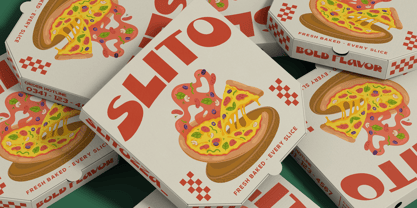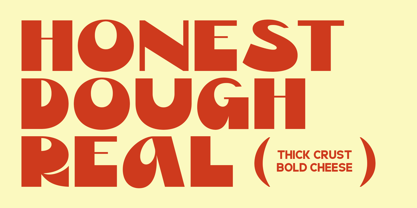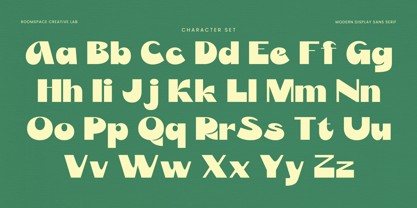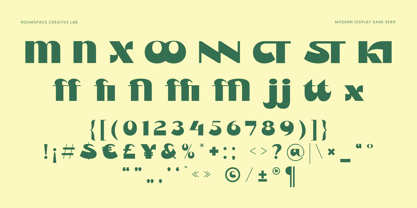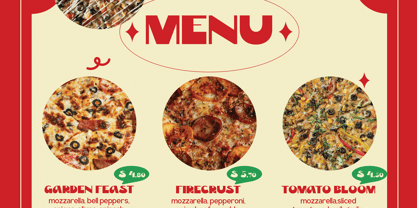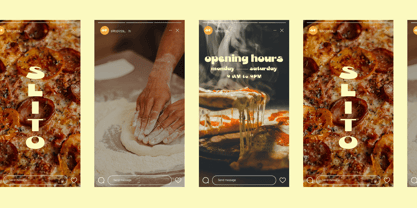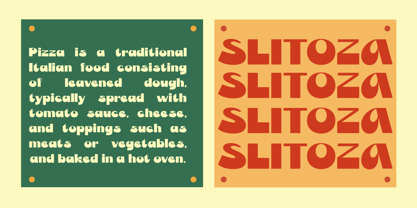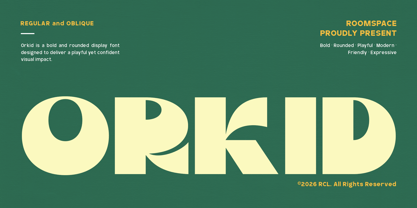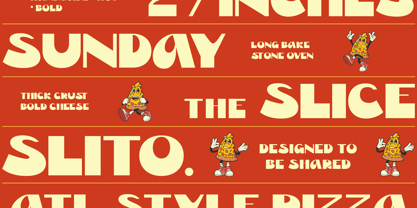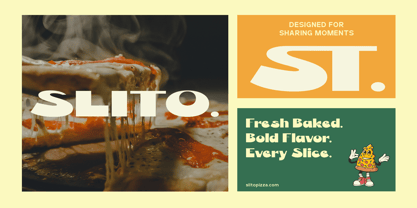
Orkid
Die Schriftfamilie Orkid wurde von Bakhrudin Ja'far entworfen und von Jafar07 veröffentlicht. Orkid enthält 2 Stile und Familienpaketoptionen. Mehr über diese Familie
Slito is a bold rounded display font designed to deliver a playful yet confident visual impact. Featuring soft curves, wide shapes, and expressive letterforms, Slito brings a friendly modern tone to any creative project. With Regular and Oblique styles included, this font is perfect for branding, packaging, posters, logos, social media graphics, and eye-catching headlines. Slito is built for designs that need personality, clarity, and strong presence. Features : Regular & Oblique styles Bold rounded display design Uppercase & lowercase Multilingual support Clean spacing & smooth curves Perfect For : Branding, packaging, posters, logos, social media, headlines, advertising, and creative design projects.
A little from my personal design & background: My name is Bakhrudin Ja'far, I live in Malang, Indonesia. I am currently completing my degree in visual communication design and I have worked as a lettering artist and logo designer for many years. I finally started my studio called roocspace creative lab (jafar07) Studio a few months ago and with my team made my letters into typography.